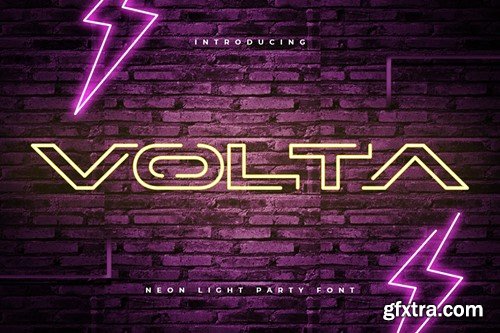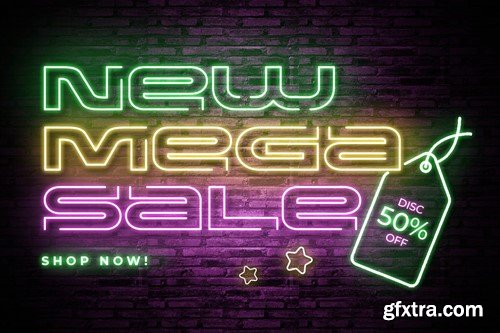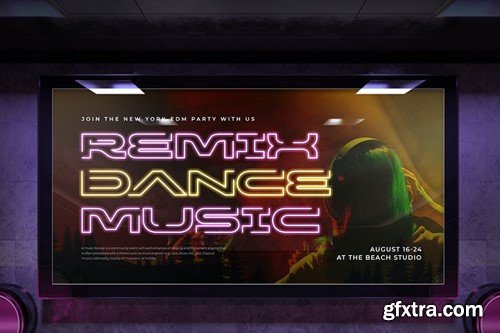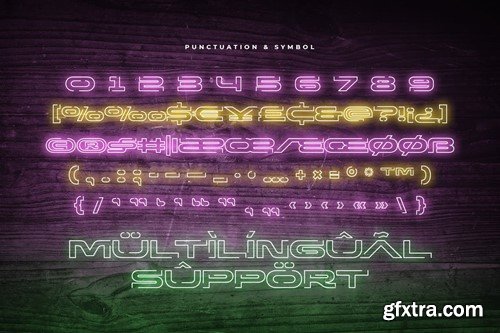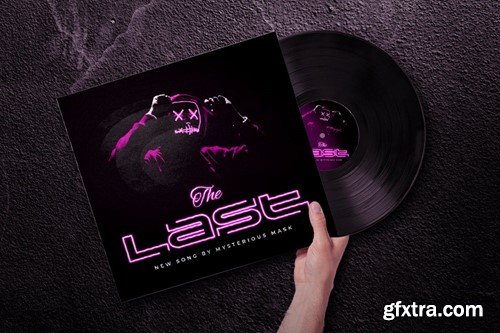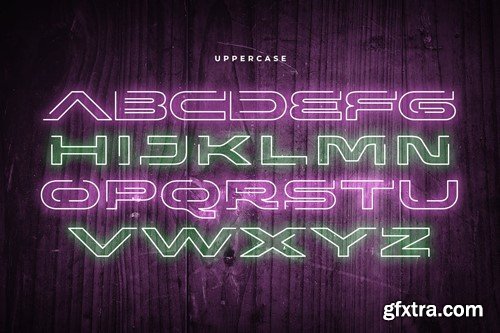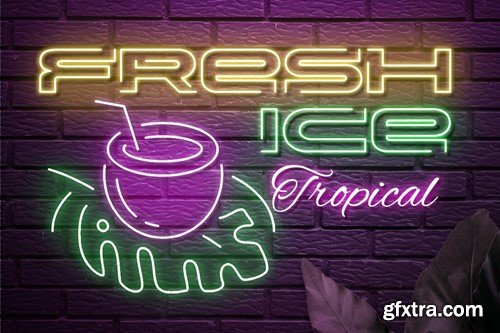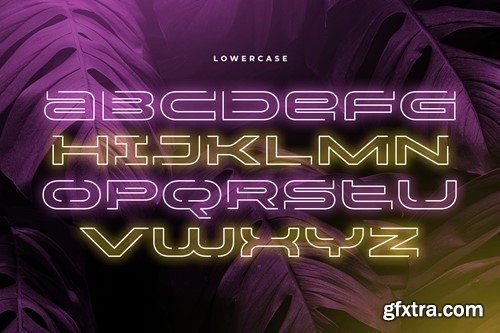
VOLTA - Neon Light Party Font
VOLTA is a Neon Light Font with Floating shape make your design look unique and modern like Party style A new Display Font that we created special for Headline, Title and more stand out typography needs. It's so perfect to add your style and headline overview. And specially for this font, we crafted for unique style and modern feels so enjoy to create any project that will show your main idea out. VOLTA Neon Light Party Font ready with: Wish you enjoy our font. :)